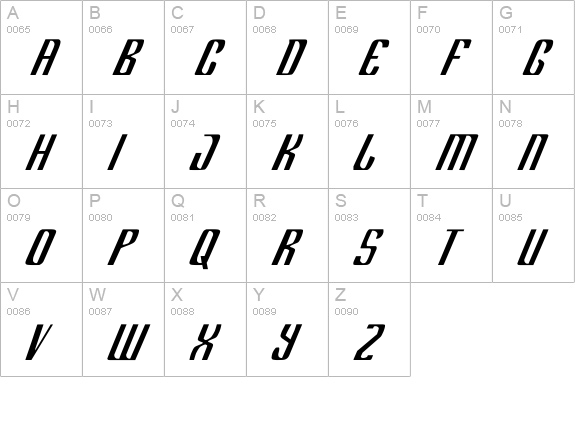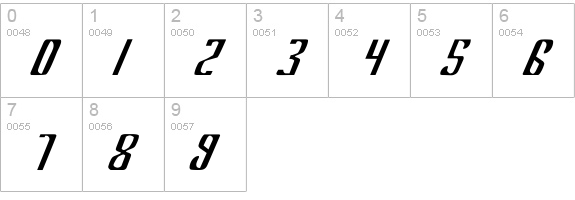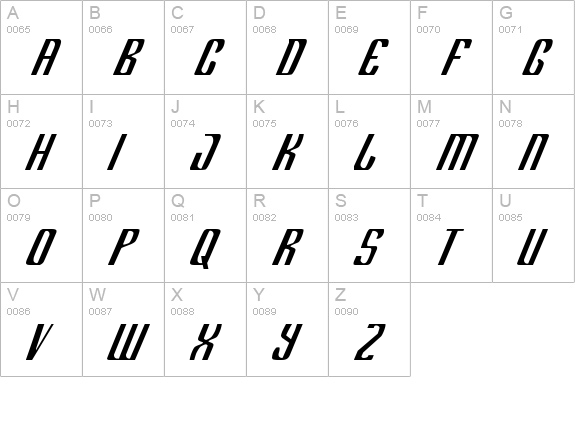
Department H Font Details
Department H font is a sleek and modern typeface that exudes sophistication and style. Its clean lines and sharp angles make it perfect for a wide range of design projects, from logos to branding materials to website headers. The font's versatility allows it to be used in both digital and print formats, ensuring that your message will be delivered with clarity and impact. What's even better is that Department H font is completely free to download at FontsMarket.com. This means that you can access this high-quality font without any cost, making it a valuable addition to your font library. With its distinctive look and professional feel, Department H font is sure to elevate your design projects and help you stand out from the crowd. Download it today and see for yourself the difference this font can make in your creations.